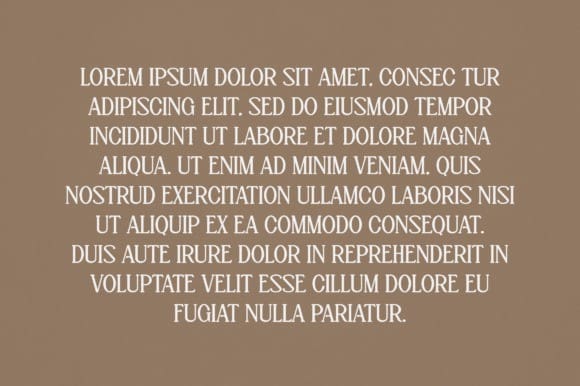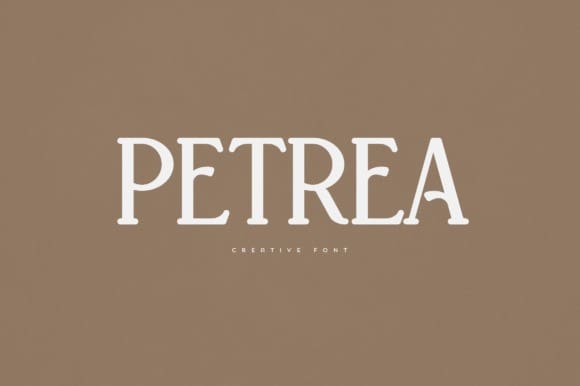
Petrea Font
Petrea Font is an elegant and versatile serif font that will make your typography truly unique! It will enchant every logo, branding, headline, or plain text!